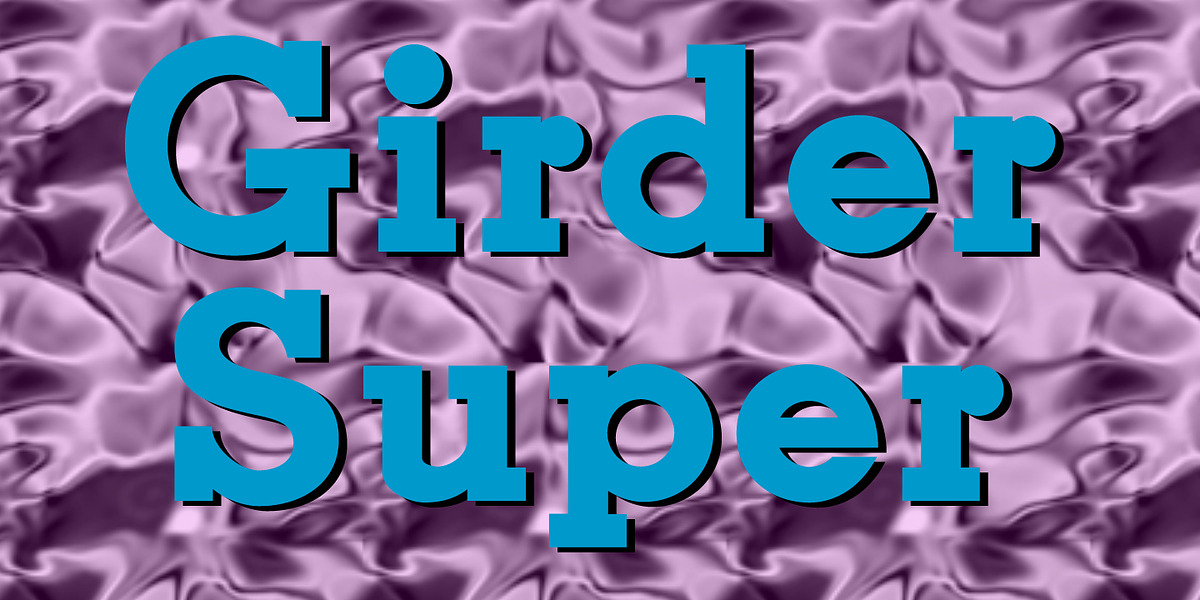
Girder Super
Girder Super is a bold and robust typeface characterized by its geometric slab serif design. It is particularly well-suited for display applications such as headlines, posters, and branding materials where a strong visual impact is desired.